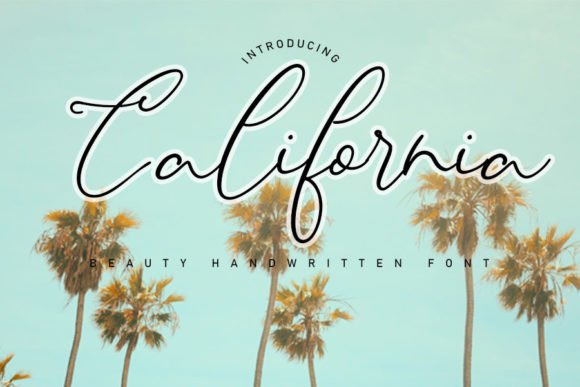
Introducing California Font: Elevate Your Designs with Elegance
Are you a designer or crafter looking for a font that embodies sophistication and creativity? Look no further than the California Font. This delicate, elegant, and flowing handwritten font is designed to bring a touch of refinement to your projects. With its beautiful and well-balanced characters, California Font is the perfect addition to your design toolkit.
The Characteristics of California Font
California Font boasts a range of characteristics that make it an ideal choice for designers and crafters. Its handwritten nature gives it a personal and organic feel, while its elegant and flowing lines evoke a sense of sophistication and luxury. The font’s delicate curves and balanced characters ensure that it remains legible and visually appealing, even at smaller sizes.
One of the standout features of California Font is its versatility. Its elegant and flowing design makes it suitable for a wide range of projects, from wedding invitations and branding materials to packaging and digital media. Whether you’re creating a sophisticated logo or a beautiful poster, California Font is sure to make your design stand out.
Why Choose California Font?
So why should you choose California Font for your next project? Here are just a few reasons:
- Elegance and sophistication: California Font adds a touch of luxury to any design, making it perfect for high-end branding and marketing materials.
- Versatility: With its flowing lines and balanced characters, California Font is suitable for a wide range of projects and design styles.
- Legibility: Despite its delicate nature, California Font remains legible even at smaller sizes, making it perfect for use in body text and captions.
- Uniqueness: California Font’s handwritten nature ensures that your design stands out from the crowd and avoids the generic feel of more traditional fonts.
Using California Font in Your Designs
California Font is easy to use and can be incorporated into a wide range of design projects. Here are a few ideas to get you started:
- Wedding invitations and stationery: Add a touch of elegance to your wedding invitations, save-the-dates, and other stationery with California Font.
- Branding and logos: Use California Font to create a sophisticated and luxurious brand identity that sets your business apart.
- Packaging design: Add a touch of refinement to your product packaging with California Font, perfect for high-end food, beauty, and lifestyle products.
- Digital media: Use California Font in your digital designs, such as social media graphics, email newsletters, and website headers, to add a touch of elegance and sophistication.
Tips for Working with California Font
Here are a few tips for getting the most out of California Font:
- Experiment with font sizes: California Font looks beautiful at a range of font sizes, from large headings to smaller body text.
- Pair with contrasting fonts: Combine California Font with a contrasting font to create visual interest and add depth to your design.
- Use in combination with images: California Font looks beautiful when paired with high-quality images, adding a touch of elegance to your design.
| Font Name | California Font |
| Author | Leontyn Art |
In conclusion, California Font is a beautiful and elegant handwritten font that is sure to elevate your designs. With its flowing lines, balanced characters, and sophisticated feel, it’s the perfect addition to your design toolkit. Whether you’re a designer or crafter, California Font is a versatile and luxurious font that will help you create stunning designs that stand out from the crowd.